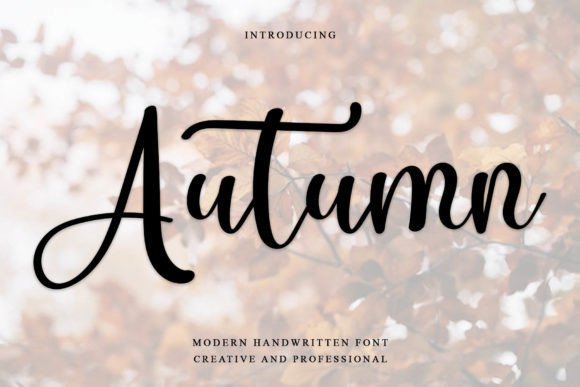
The Magic of Autumn Font: Elevate Your Designs with Elegance
As I started experimenting with Autumn Font, I fell in love with its incredibly distinct and timeless style. Here are a few things that make it stand out:
- ✨ Elegant touch: The font has a sophisticated, handwritten feel that’s perfect for projects that require a touch of class.
- ✅ Highly legible: Despite its elegant nature, Autumn Font is surprisingly easy to read, even at smaller font sizes.
- 💫 Versatile: The font comes with a range of OpenType features, glyphs, and stylistic alternates, making it suitable for a wide range of design projects.
Of course, no font is perfect, and Autumn Font has a few quirks to keep in mind:
- ⚠️ Limited availability of certain characters: As with any font, some characters might be less common or require a bit more digging to find.
- 🤔 May not be the best fit for very bold or dramatic designs: Autumn Font’s elegant nature means it might get lost in very bold or dramatic designs.
The Story Behind Autumn Font: Designer Inspiration
Autumn Font was created by a talented designer who wanted to capture the essence of the fall season in a beautiful, handwritten font. The designer’s inspiration came from the warm, golden tones of autumn leaves and the cozy atmosphere of the season. The result is a font that’s both elegant and inviting, perfect for a wide range of design projects.
| What makes Autumn Font unique? | Autumn Font’s unique blend of elegance and legibility makes it stand out from other fonts. |
| Is Autumn Font available in different weights or styles? | Autumn Font comes in a range of styles and weights, making it versatile for different design projects. |